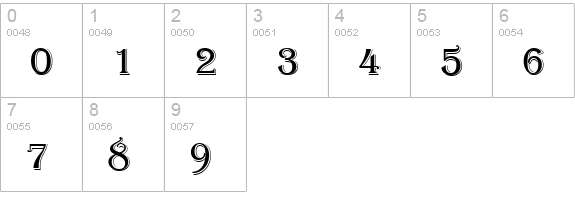
The Algerian font is a bold and eye-catching typeface that exudes a sense of elegance and sophistication. Its intricate design features elaborate swirls and sharp angles that give it a unique and distinctive appearance. This font is perfect for adding a touch of flair to any design project, whether it be for a logo, poster, or website. The best part about the Algerian font is that it is completely free to download! You can easily access this stunning font at FontsMarket.com and start using it in your projects right away. Impress your audience with the timeless beauty of the Algerian font and take your designs to the next level.